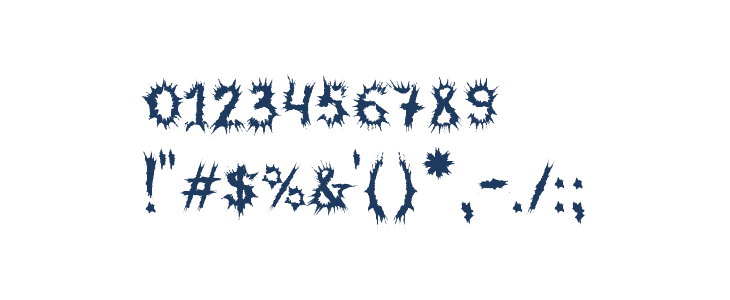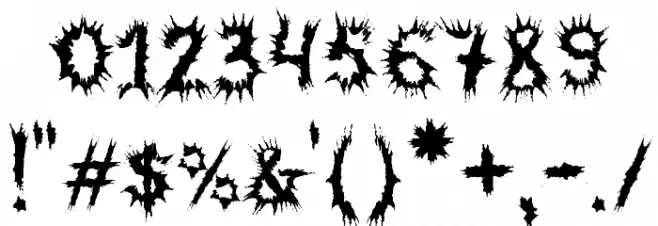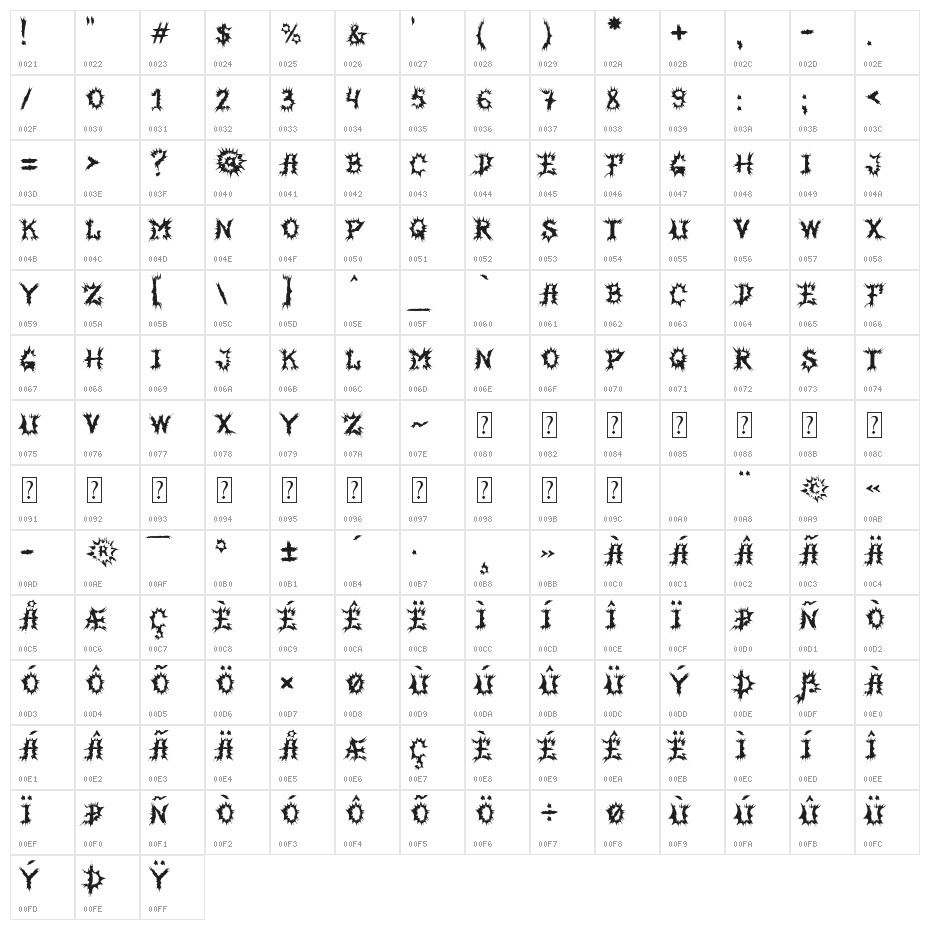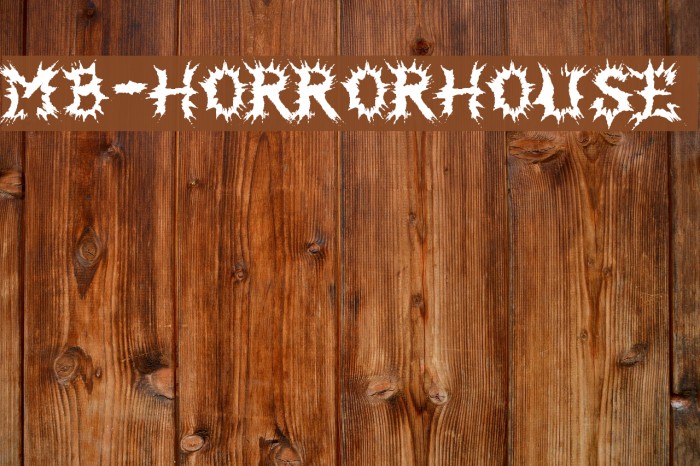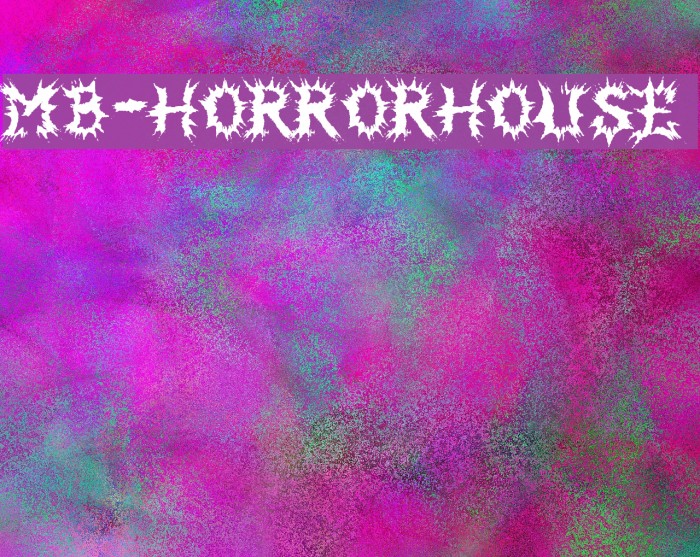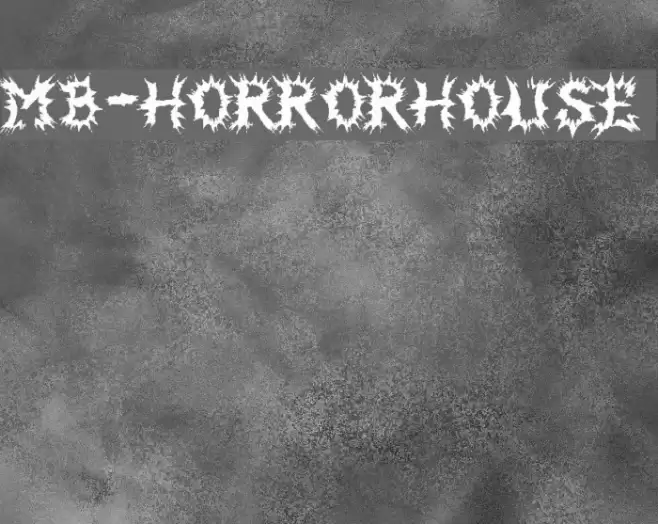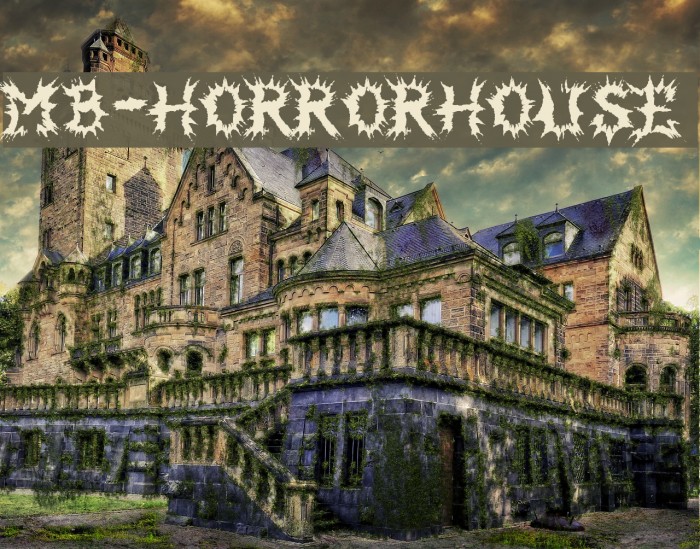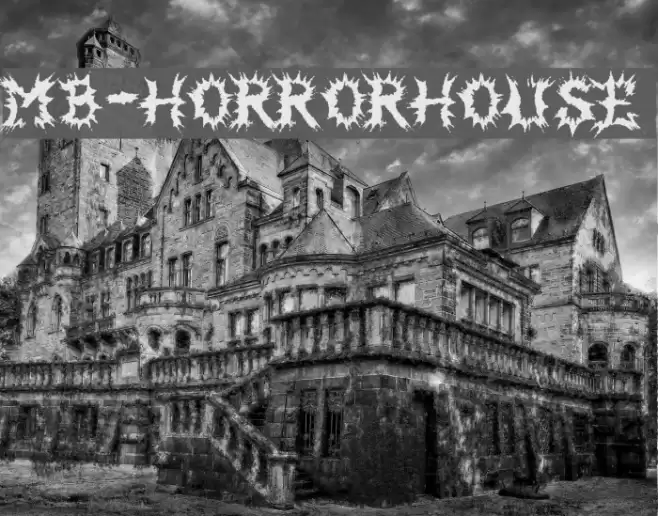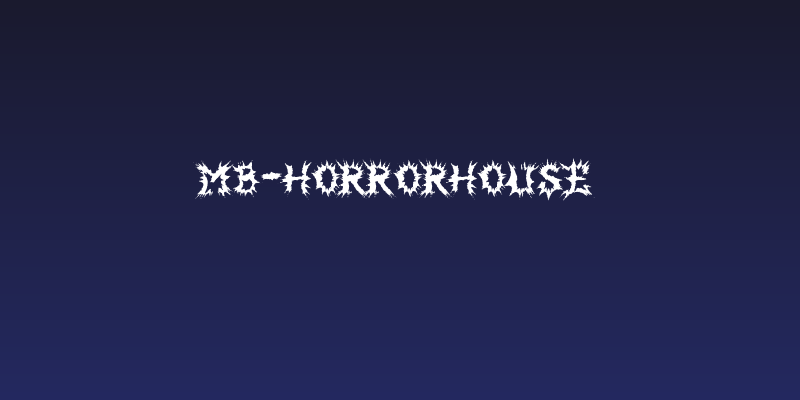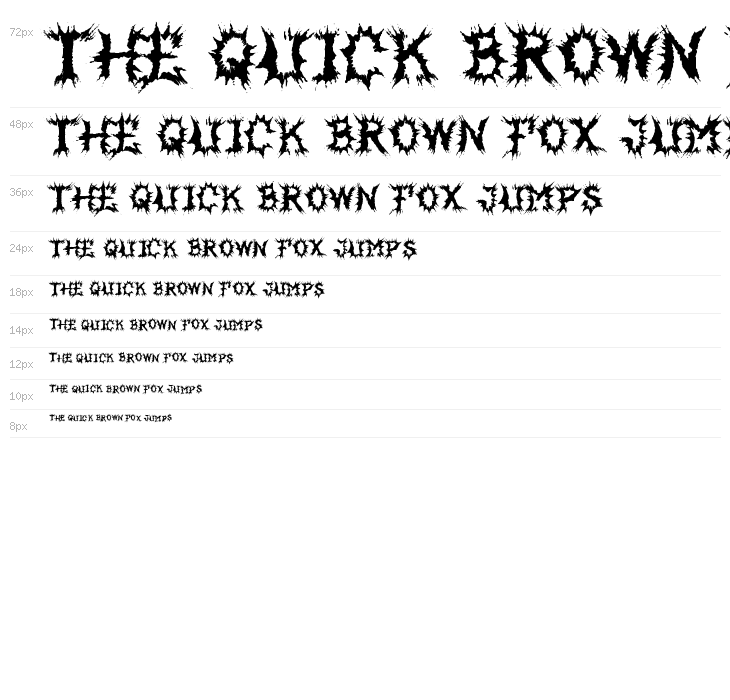
MB-HorrorHouse Font
MB-HorrorHouse Description
This font exudes a chilling and eerie vibe, perfect for horror-themed projects. The characters are jagged and irregular, resembling torn or decayed material, which adds to its unsettling appearance. The uppercase and lowercase letters maintain a consistent style, with sharp edges and a chaotic form that suggests movement or distress. Numbers and special characters follow the same design principles, ensuring a cohesive look across all text elements. The font's unique style makes it ideal for creating an atmosphere of suspense and fear.
| Overall Style | Horror, Distressed, Chaotic |
| Use Case | Headlines, Logos, Themed Posters |
| Proposed Projects | Perfect for Halloween posters, horror movie titles, haunted house flyers, and spooky event invitations. |